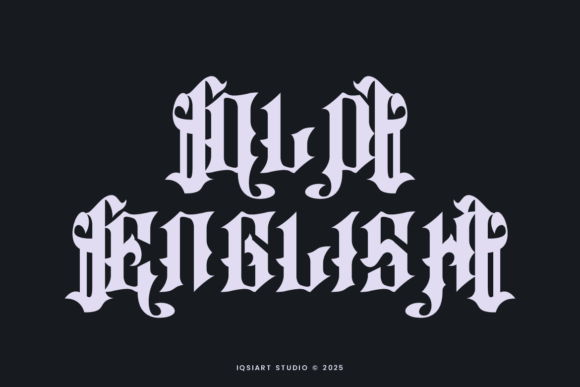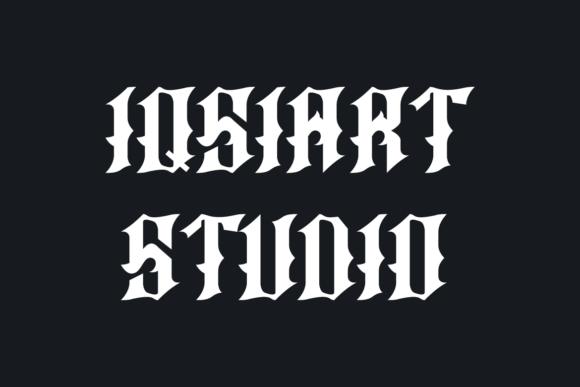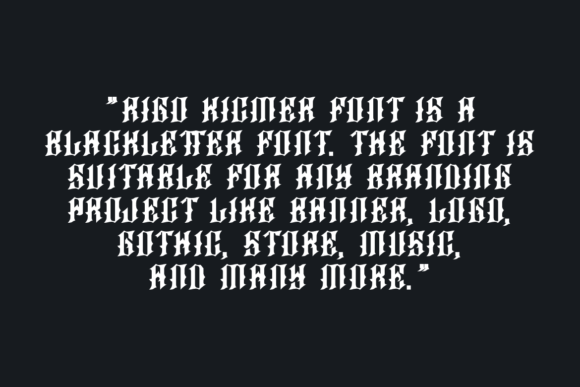
Introduction to Rigo Kicmer Font
As a designer, there’s nothing quite like the thrill of adding that perfect finishing touch to a project. You’ve spent hours pouring over every detail, and it’s all coming together beautifully – but something’s missing. That’s where the Rigo Kicmer Font comes in. This bold and thick blackletter font is the ultimate game-changer for any creative project.
With its high-quality design and transparent background, the Rigo Kicmer Font is the perfect addition to any design resource. And the best part? It’s free to download, making it an invaluable resource for designers on a budget. Whether you’re working on a branding project or a custom graphic, the Rigo Kicmer Font is sure to elevate your design to the next level.
Key Features of Rigo Kicmer Font
- Unique and modern design ideal for creative projects and designs
- High-quality font with transparent background for seamless integration
- Supports a wide range of languages, including Latin, Cyrillic, and more
- Perfect for creative professionals and designers looking for a modern and elegant font
Honest Review: Rigo Kicmer Font
I recently stumbled upon the Rigo Kicmer Font while searching for a unique design resource for a creative project. After exploring its features, I was impressed with its high quality and versatility.
Here’s what I like about the Rigo Kicmer Font:
- ✨ Elegant and modern design that’s perfect for creative projects
- ✨ High-quality font with a transparent background, ideal for graphic design and digital art
- ⚠️ Limited font sizes available, which may not be suitable for large-scale projects
- ⚠️ Not as versatile as other fonts in terms of style and customization options
Overall, the Rigo Kicmer Font is a solid addition to any designer’s toolkit. Its high-quality design and transparent background make it a great choice for creative projects, and the free download option is a major plus. While it may have some limitations, I still highly recommend giving it a try.
How to Use Rigo Kicmer Font
Introduction to Rigo Kicmer Font
Rigo Kicmer Font is a high-quality design resource that can elevate your creative project to the next level. With its unique style and transparent background, it’s perfect for adding a touch of sophistication to your designs.
Tips for Getting the Most Out of Rigo Kicmer Font
To get the most out of Rigo Kicmer Font, try using it in combination with other design elements, such as bold colors and textures. Experiment with different font sizes and styles to create a unique and eye-catching design.
Rigo Kicmer Font is perfect for a variety of design projects, including:
- Logo design: Use Rigo Kicmer Font to create a unique and memorable logo for your brand.
- Infographic design: Add Rigo Kicmer Font to your infographic to make it more visually appealing.
- Business card design: Use Rigo Kicmer Font to create a professional and stylish business card.
When to use: Noto Sans is ideal for projects requiring a clean, modern look. It’s a great alternative to Rigo Kicmer Font for those seeking a similar sans-serif style without the need for a specific design resource.
Comparison: Noto Sans is more versatile than Rigo Kicmer Font, with a wider range of languages supported and a more extensive character set.
Montserrat is a geometric sans-serif font perfect for creative projects, including branding, advertising, and editorial designs. It’s a free download and offers a transparent background, making it easy to integrate into any design.
When to use: Montserrat is ideal for projects requiring a bold, modern look. It’s a great alternative to Rigo Kicmer Font for those seeking a similar geometric style with a more extensive character set.
What is the recommended resolution for using the Rigo Kicmer Font?
For optimal results, we recommend using the Rigo Kicmer Font at a resolution of 300 DPI or higher. This ensures that the font appears crisp and clear, even when used in high-resolution designs. Additionally, the font’s transparent background allows for seamless integration with other design elements.